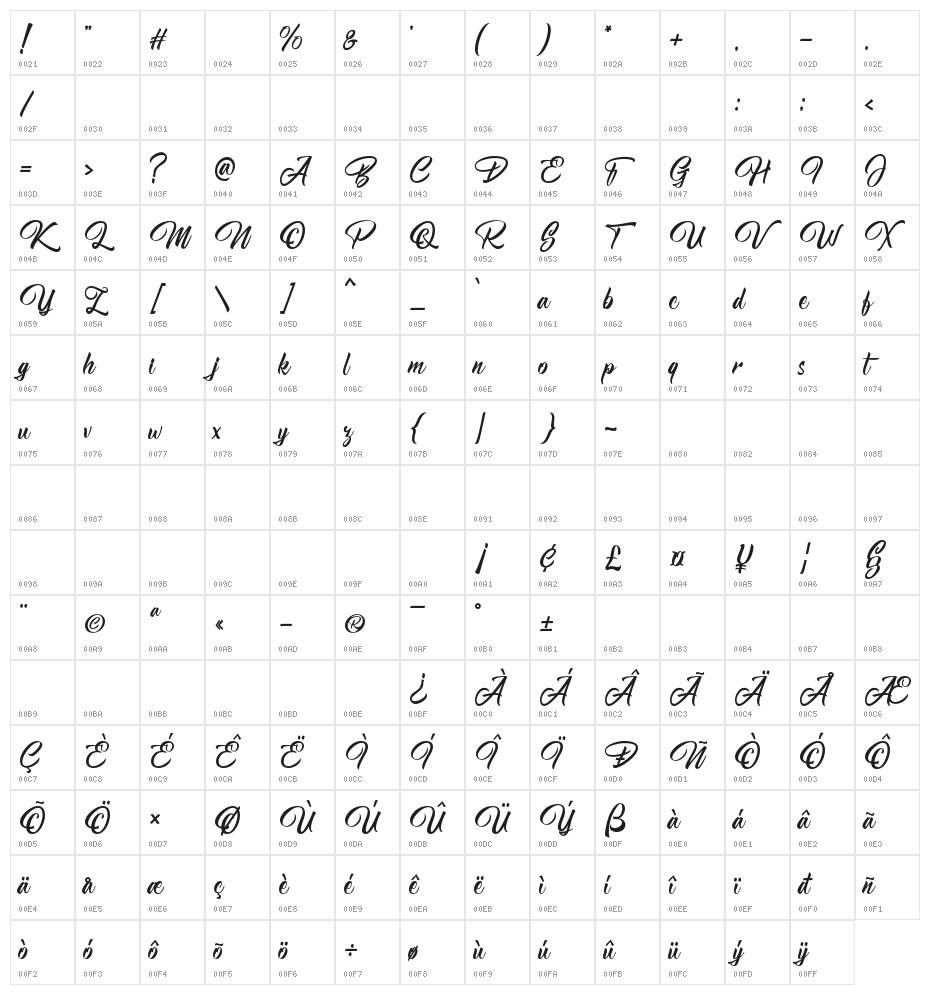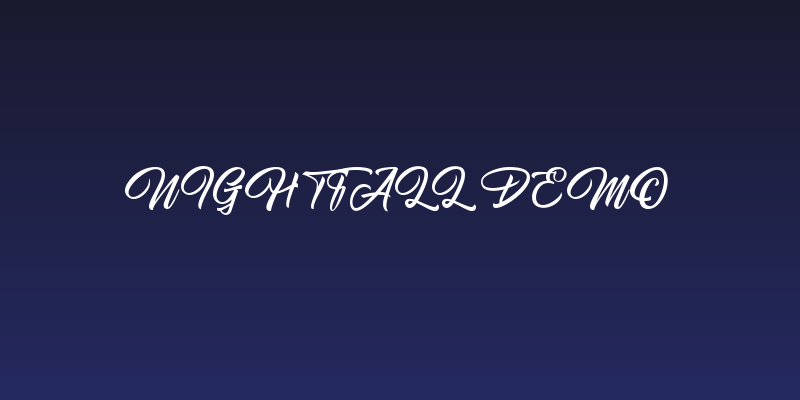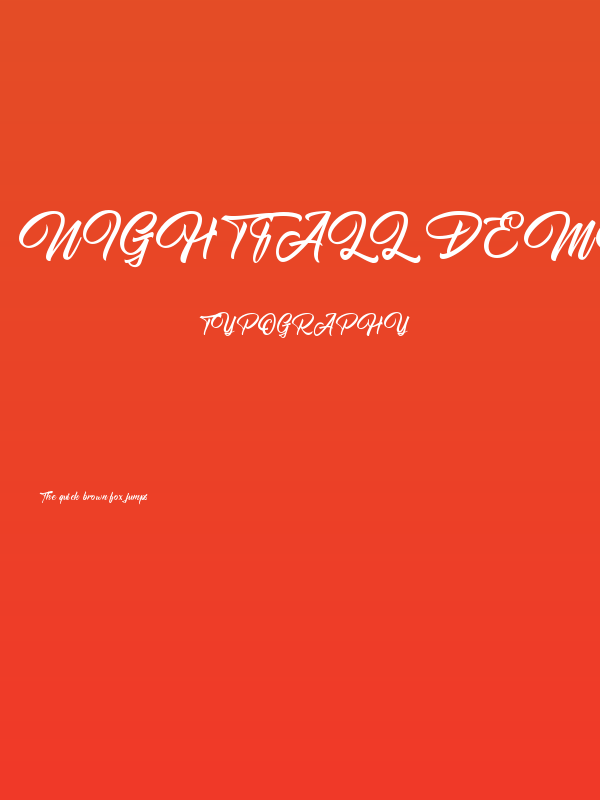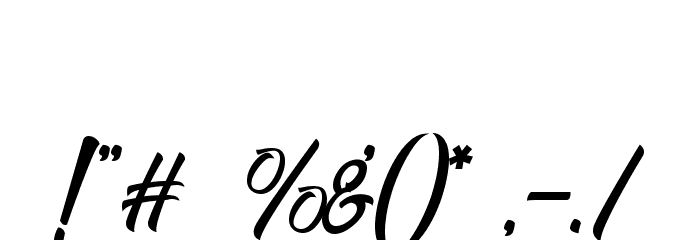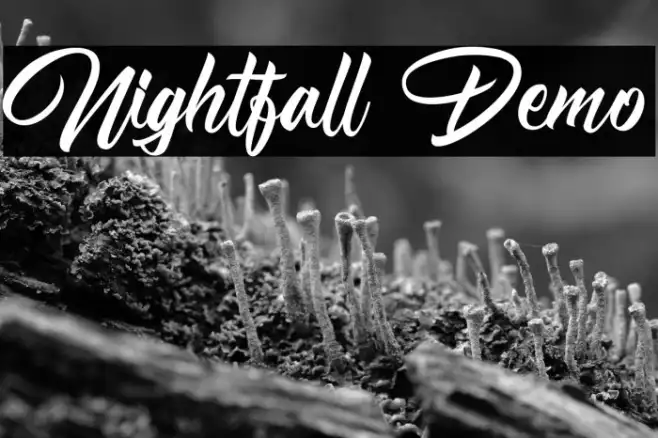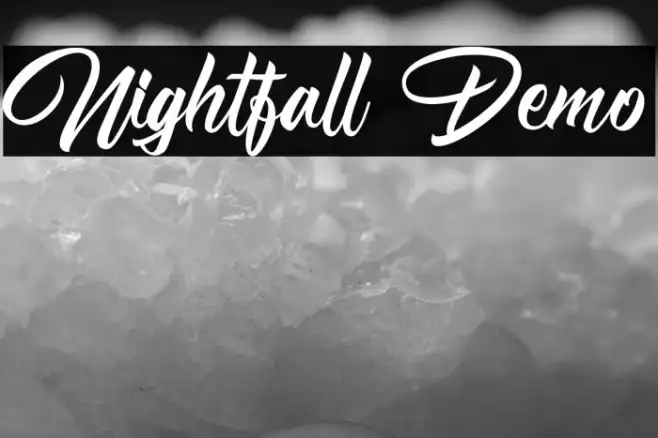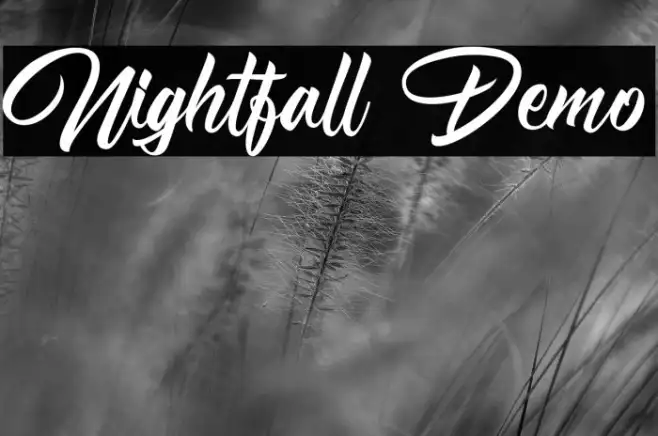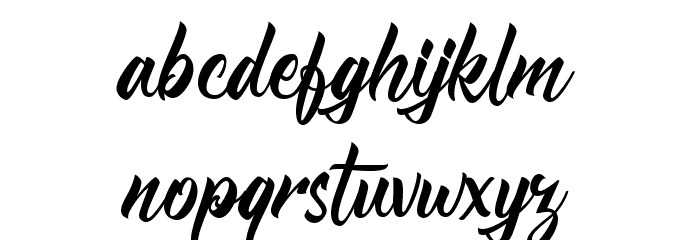
Nightfall Demo Font
Nightfall Demo Description
This font features a flowing, cursive style with elegant, sweeping strokes that give it a dynamic and expressive appearance. The uppercase letters are characterized by their intricate loops and flourishes, while the lowercase letters maintain a consistent, smooth flow. The overall design is reminiscent of traditional calligraphy, yet it retains a modern touch with its clean lines and balanced proportions. The numerals and special characters are crafted with the same attention to detail, ensuring a cohesive look across all elements. This font is ideal for projects that require a touch of sophistication and elegance.